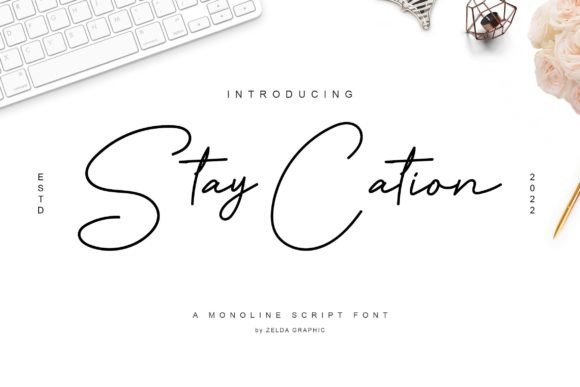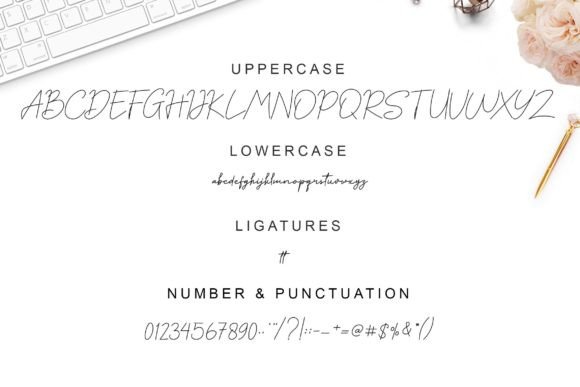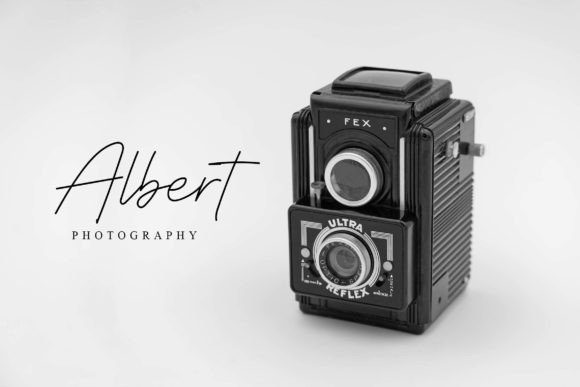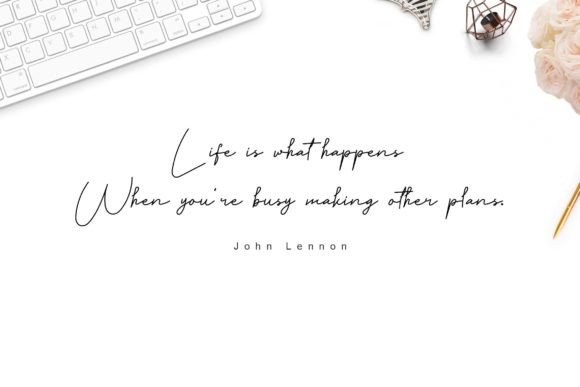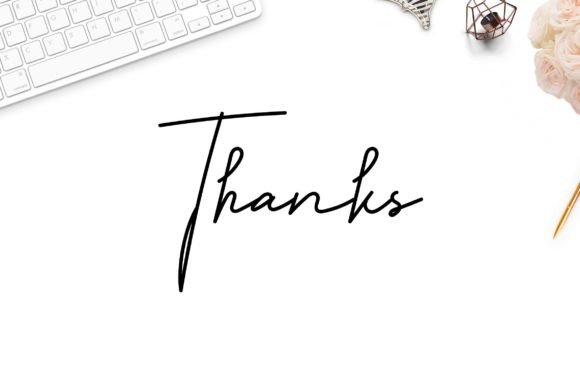
What Is Staycation Font?
Staycation Font is a stylish and elegant signature script typeface crafted to bring sophistication and flair to any project. Each letter features smooth, flowing strokes that create a professional yet personal feel. Because of its refined design, this font is ideal for work that needs a modern and upscale look.
You will see how effortlessly Staycation adds class and uniqueness to your creations.
Staycation is a versatile font that fits beautifully across many design contexts. For example, it’s perfect for logos and branding. The signature style gives any brand a premium, memorable identity.
In addition, it works wonderfully for wedding invitations and event stationery. Whether you design for elegant celebrations or creative gatherings, Staycation adds a polished touch.
You can also use it for social media graphics, quotes, and website headers. The graceful strokes help your content stand out with style.
When you design product packaging and labels, Staycation makes everything look sophisticated and professional.
Moreover, it’s great for business cards, posters, and personal projects. Even minimalist layouts feel elevated with this script.
Why Should You Choose Staycation Font?
There are many reasons to consider Staycation for your next project. First, it’s easy to read, even with its stylish script details. Whether you use large titles or small captions, every letter remains clear and balanced.
Also, Staycation pairs beautifully with clean sans-serif or serif fonts. This allows you to build modern, cohesive compositions effortlessly.
Because it’s fully PUA encoded, you can access all glyphs, alternates, and swashes without extra tools. Customizing your text becomes quick and smooth.
Designers appreciate that it looks polished right out of the box, saving time while delivering professional results.
Staycation Font adds sophistication and a personal feel to every project. For example, when you want your designs to feel exclusive and elegant, this font makes it easy.
Even minimalist layouts look more engaging with Staycation’s smooth, signature strokes. Whether you create branding, wedding materials, or social content, your work will stand out.
Using a premium handwritten script also shows your dedication to detail and quality. This builds trust with your audience and makes your designs more impactful.
Staycation Font is more than just a typeface—it’s a creative tool that helps you share ideas with clarity and elegance. From logos and packaging to invitations and social posts, this font adapts easily and leaves a lasting impression.